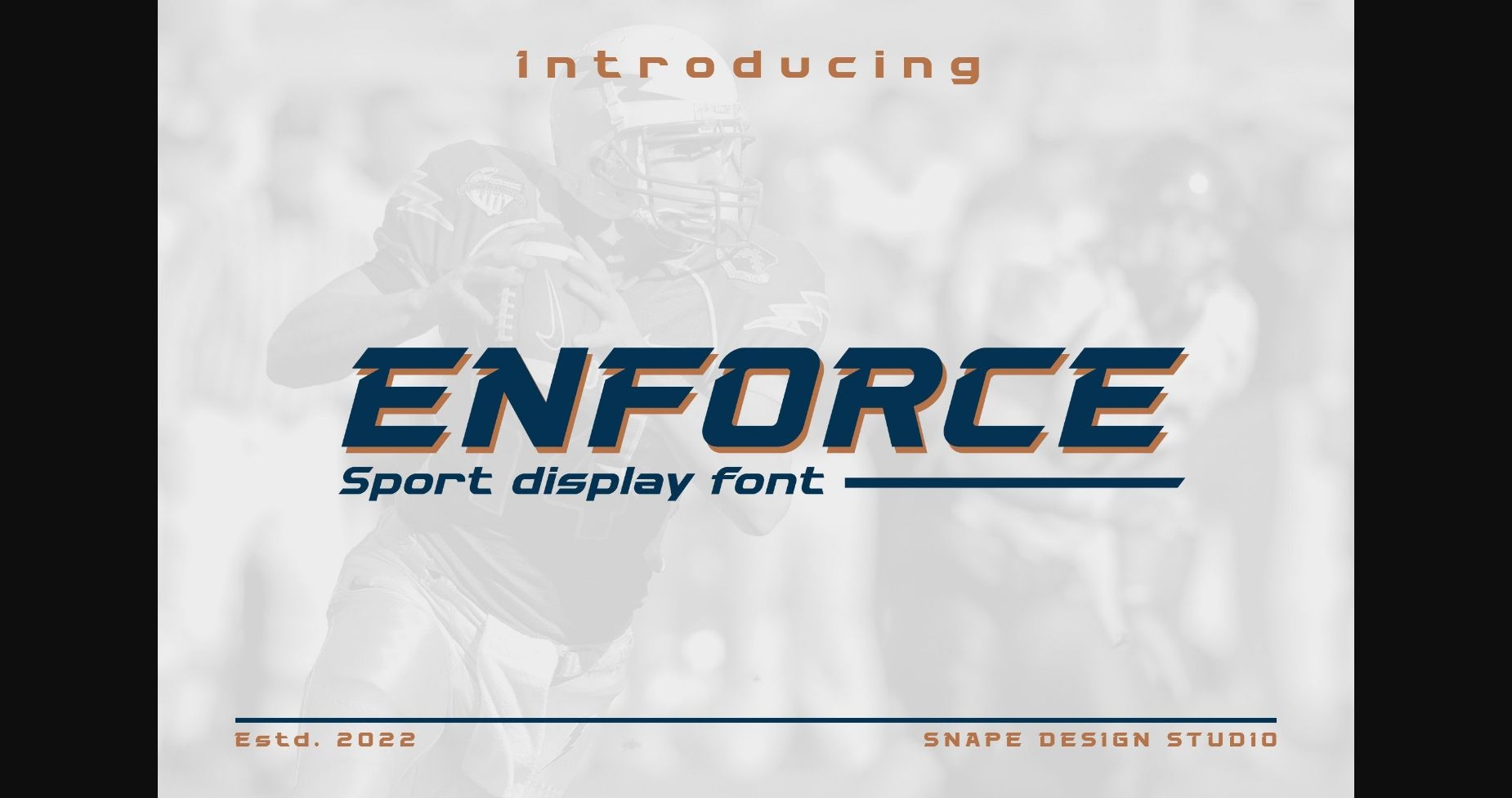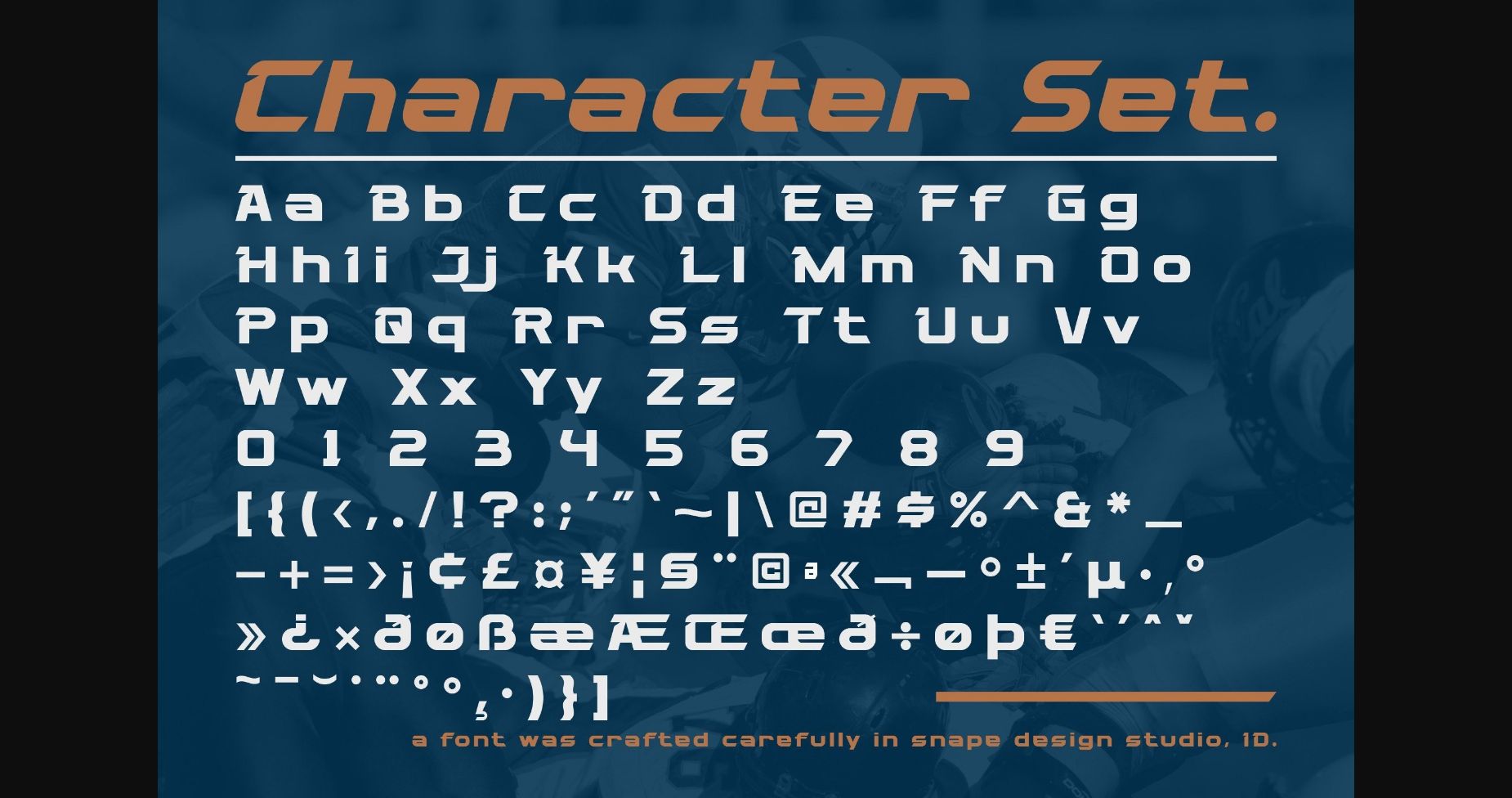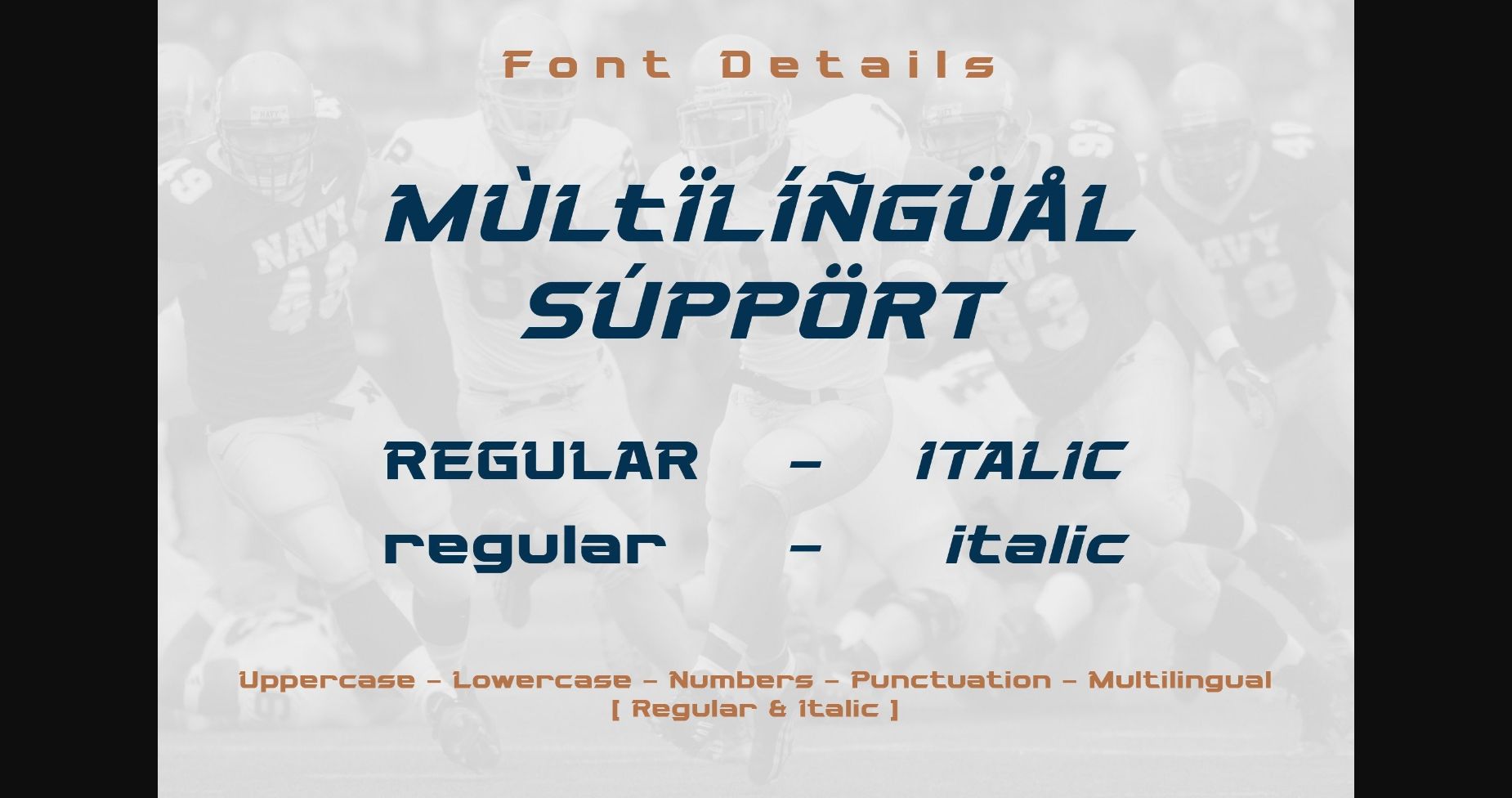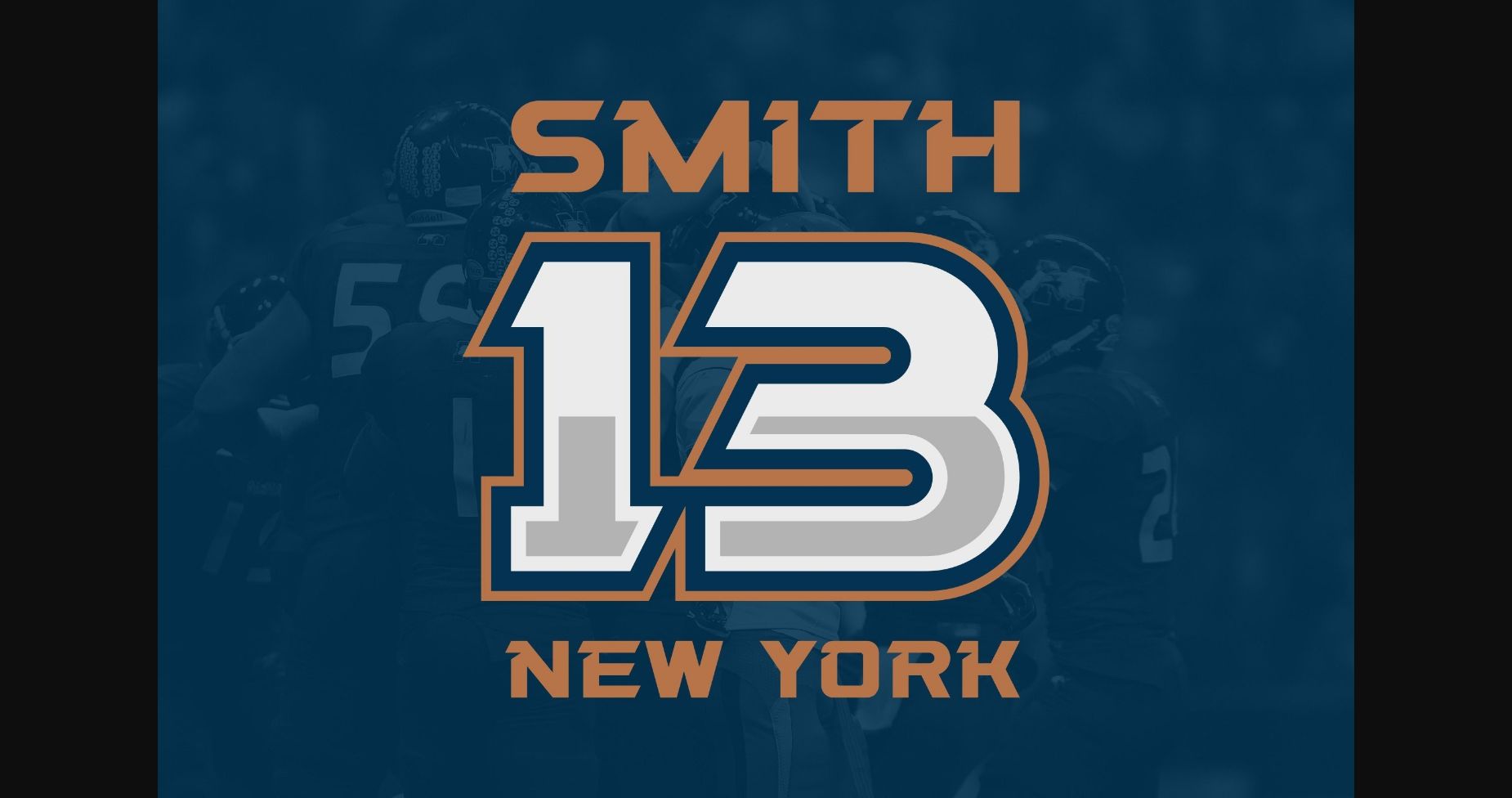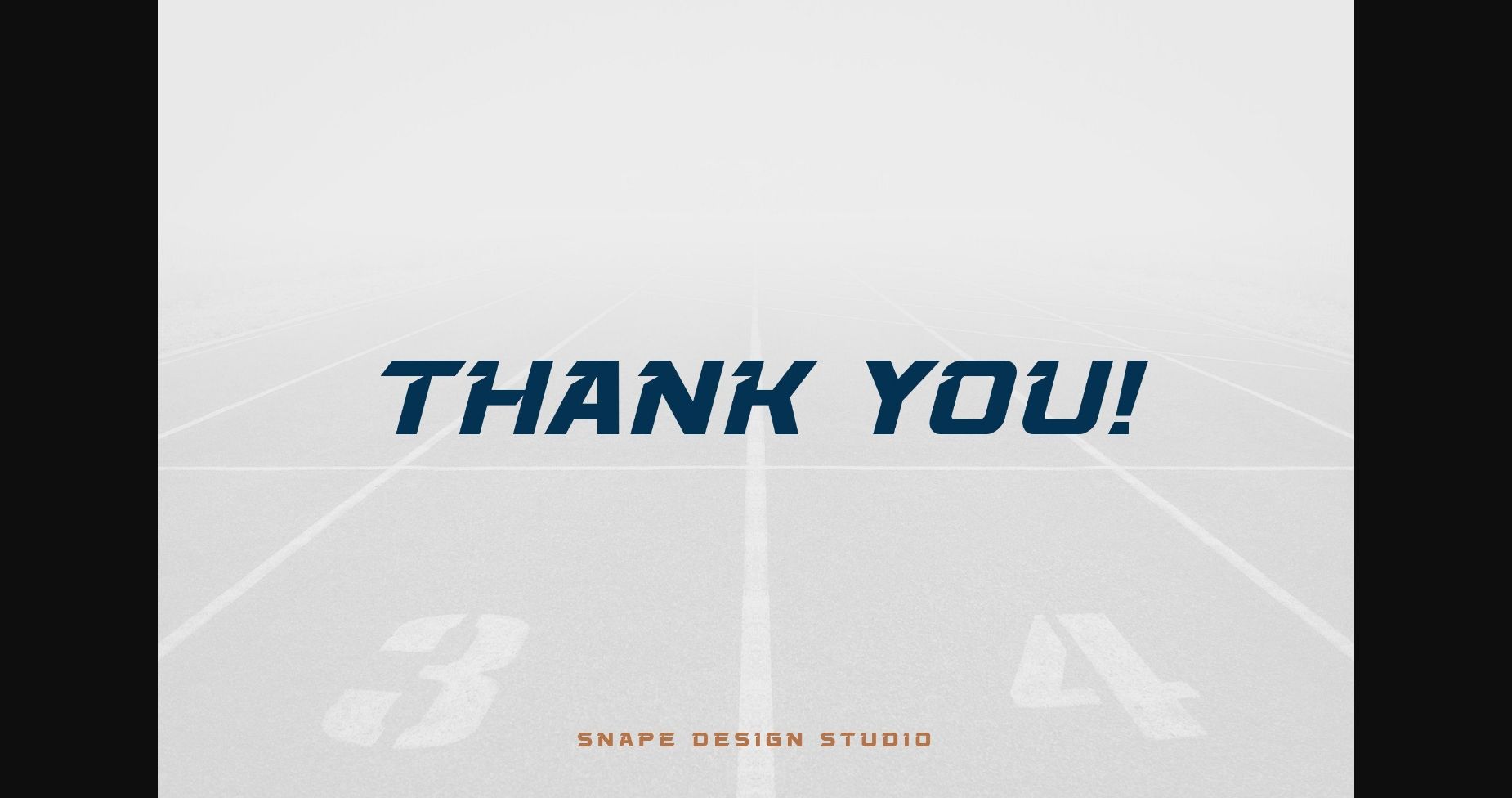
Enforce Font
About Enforce Font
Enforce is a robust font designed to draw attention and highlight any project that requires a bold feel. It looks powerful and is created to add a vibrant touch to your sport-inspired designs. Suitable for sports design, team, jersey, league, movie, documenter, film, logo, poster, game, book cover, headlines, title, and many more projects.
Add this font to your creative ideas and notice how it will make them stand out!